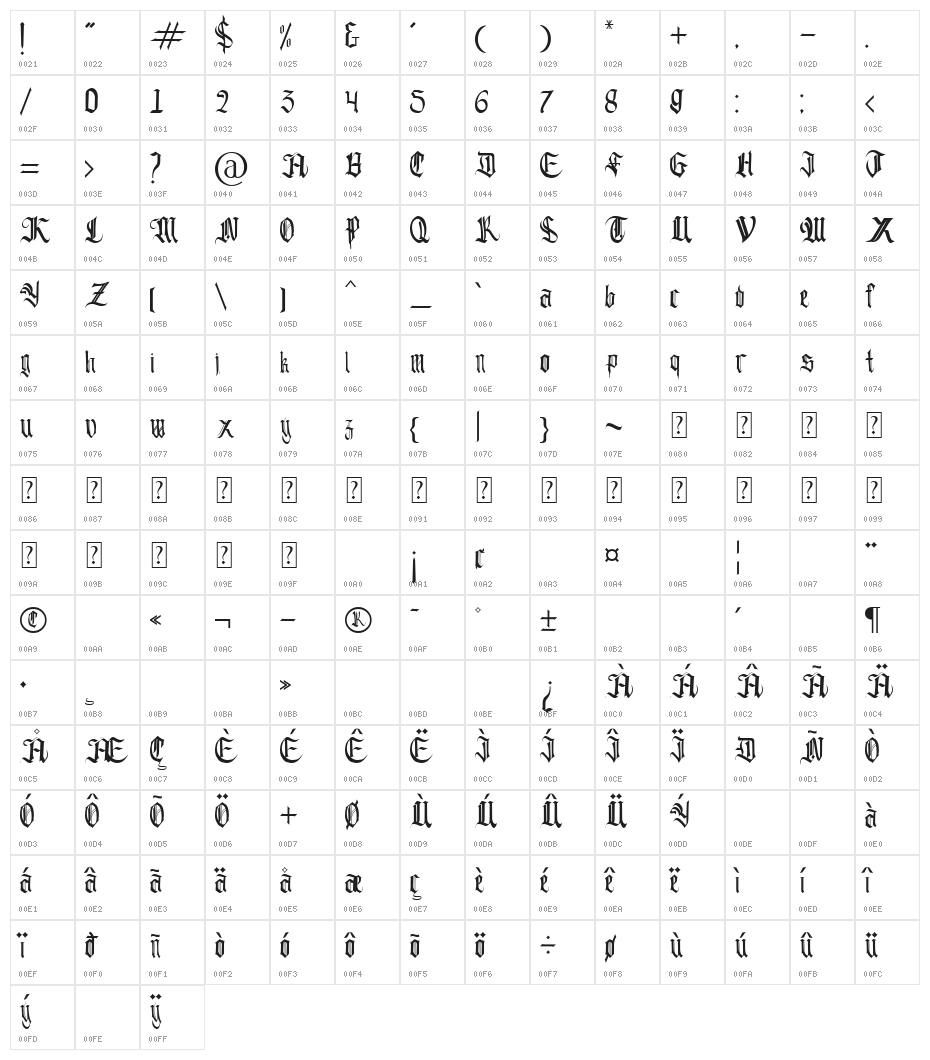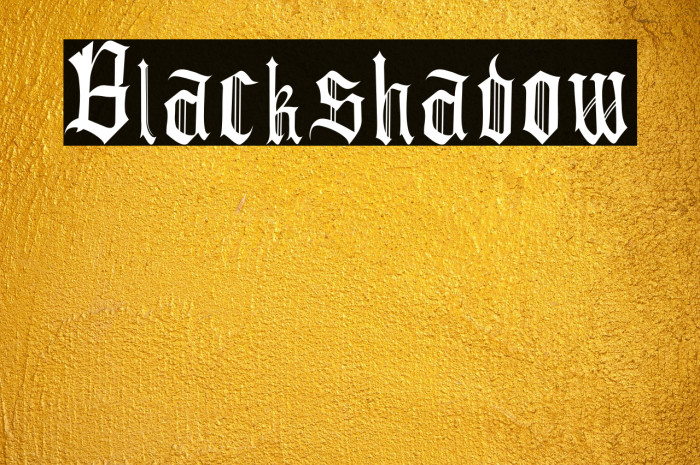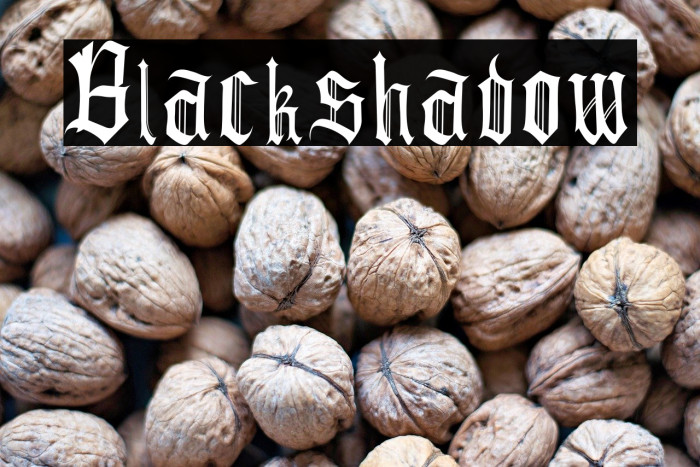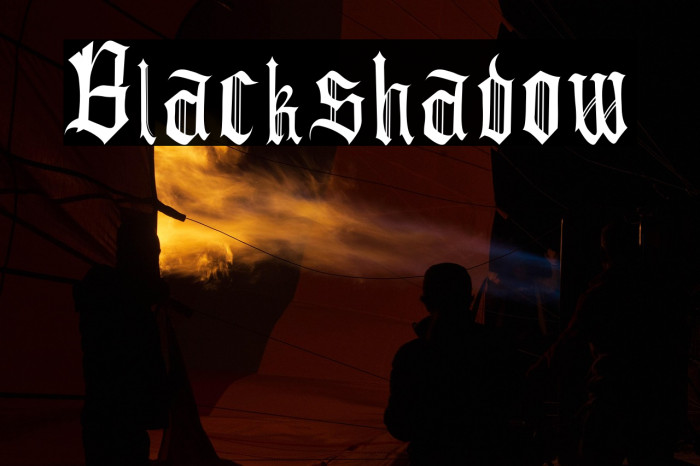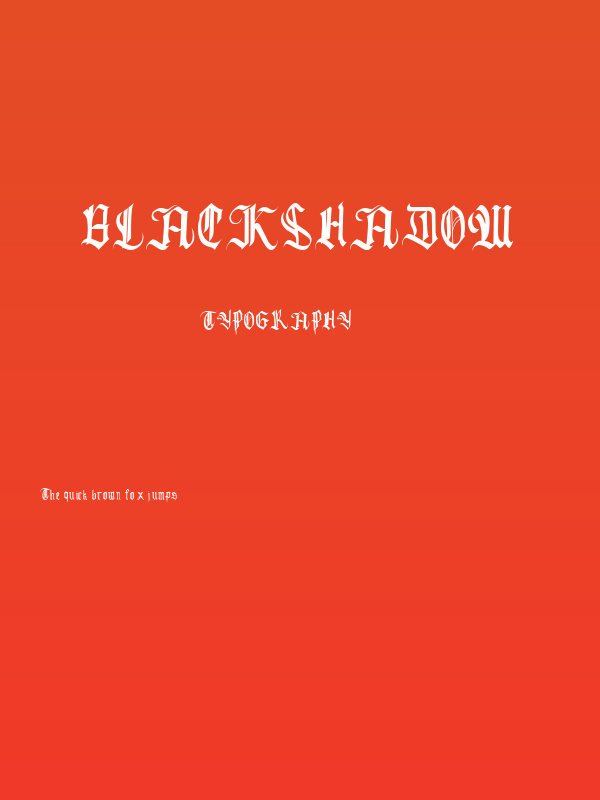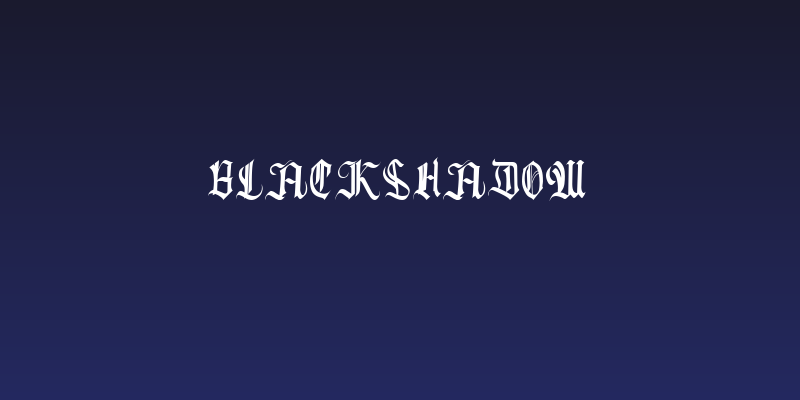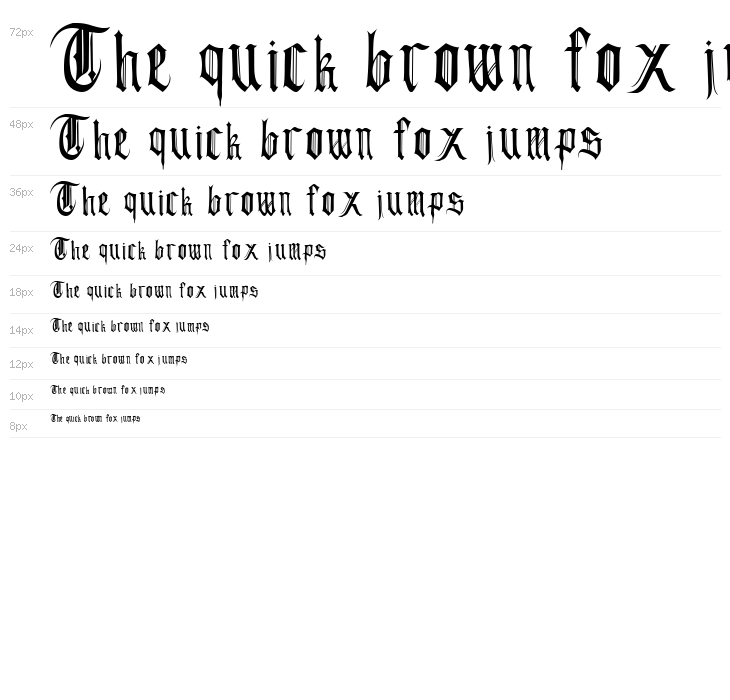
Blackshadow Font
Blackshadow Description
This font embodies a classic blackletter style, characterized by its intricate and ornate letterforms. The strokes are bold and angular, with sharp serifs and a high contrast between thick and thin lines. The uppercase letters exhibit a dramatic flair, while the lowercase letters maintain a consistent gothic aesthetic. The numbers and special characters are equally stylized, adding to the font's overall medieval and historical feel. This font is perfect for creating a sense of tradition and authority, often used in contexts that require a touch of elegance and formality.
| Overall Style | Classic |
| Use Case | Logos, Headlines, Certificates |
| Proposed Projects | Ideal for historical documents, certificates, book covers, and branding that requires a traditional or gothic touch. |